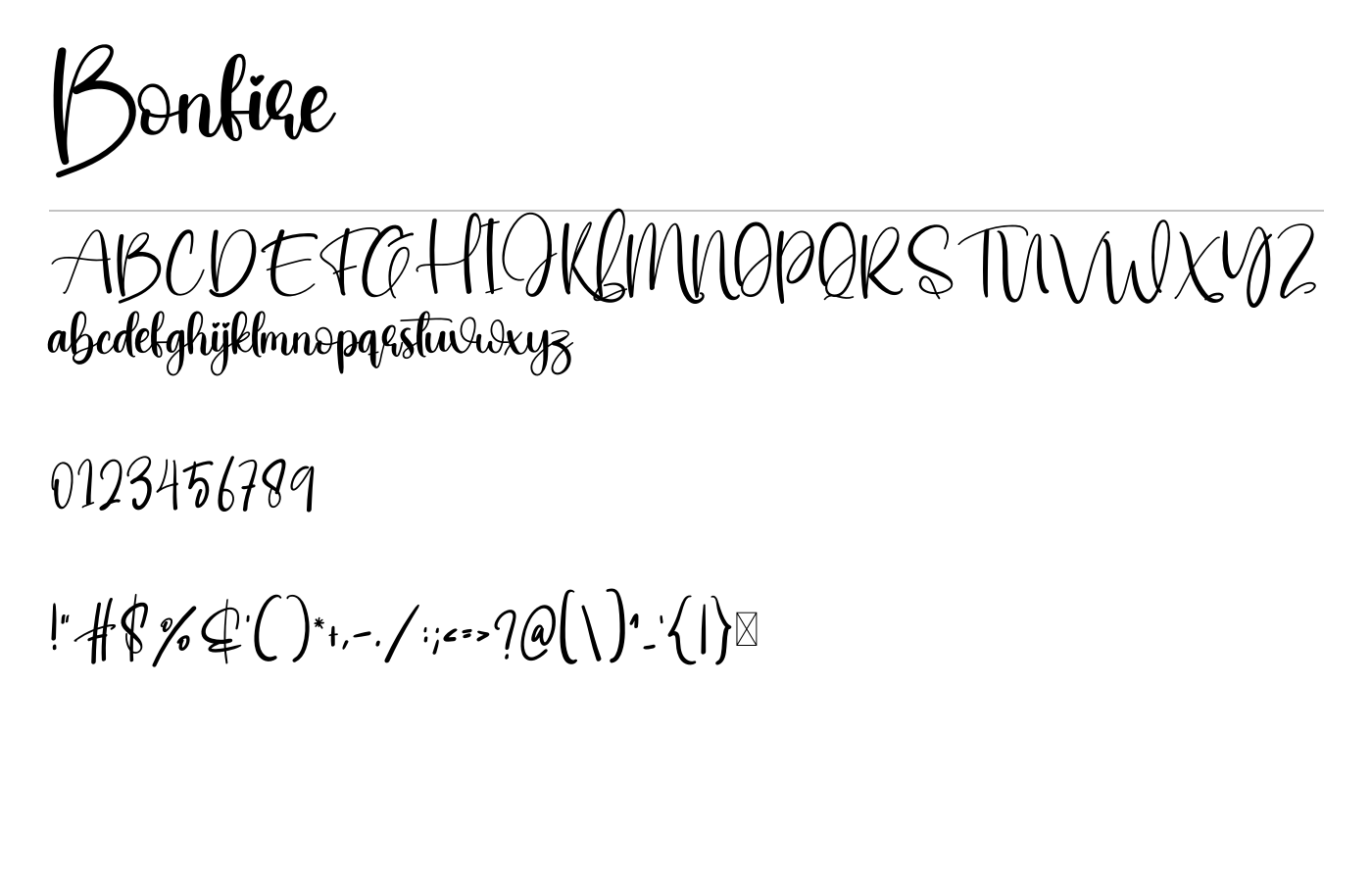
Bonfire Font is a delicate and playful script typeface characterized by its thin, flowing strokes and charmingly informal style. Its tall, slightly condensed letterforms with smooth, rounded edges give it a lively and approachable feel, making it ideal for creative projects that require a personal, hand-crafted touch such as invitations, branding for boutique products, or casual editorial content. This font’s elegant yet relaxed personality works well where warmth and friendliness are desired without sacrificing readability.
Bonfire Font